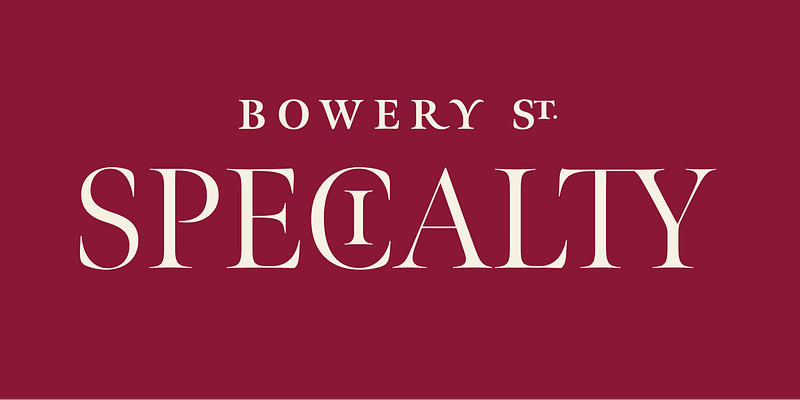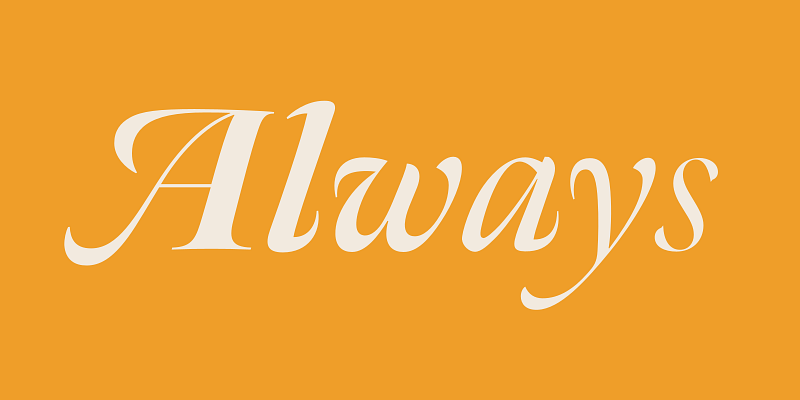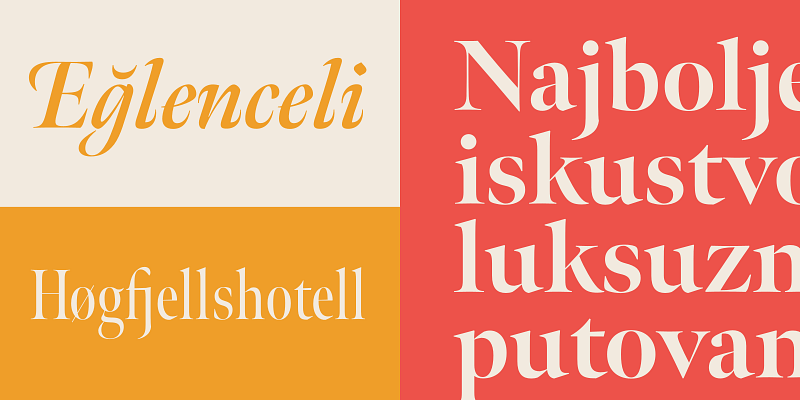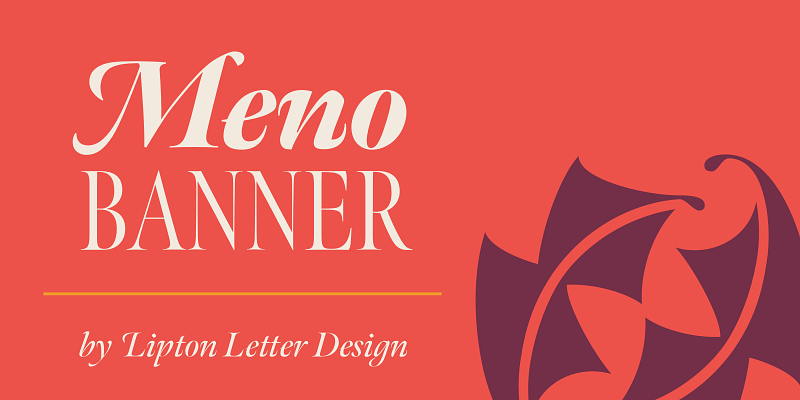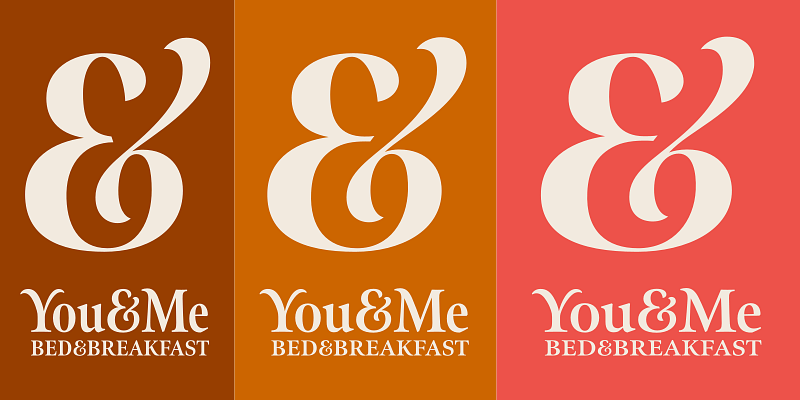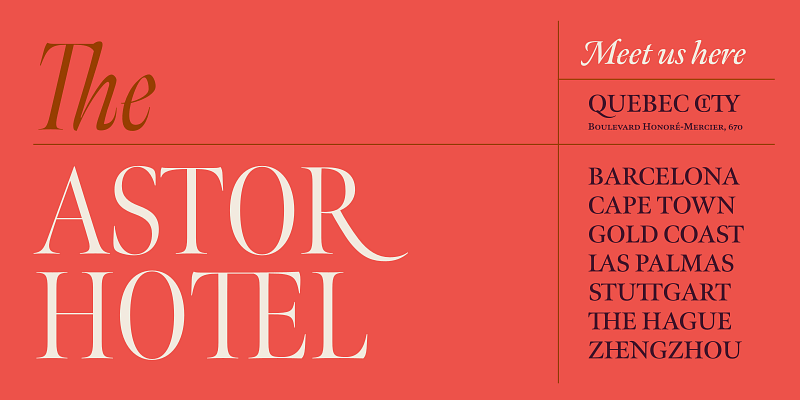
Richard Lipton designed Meno in 1994 as a modest yet elegant workhorse serif family in seven styles. In 2016, he expanded this spirited old style into a 78-style superfamily. The romans gain their energy from French baroque forms cut late in the 16th century by Robert Granjon, the italics from Dirk Voskens’ work in 17th-century Amsterdam. Meno consists of three carefully drawn optical sizes — Text, Display, and Banner, with Condensed and Extra Condensed widths added to the latter two cuts. Steadfast in text settings, Meno is replete with alternate forms, swashes, and other enhancements that showcase Lipton’s masterful calligraphic hand. The series offers a complete solution for achieving high-end editorial typography.